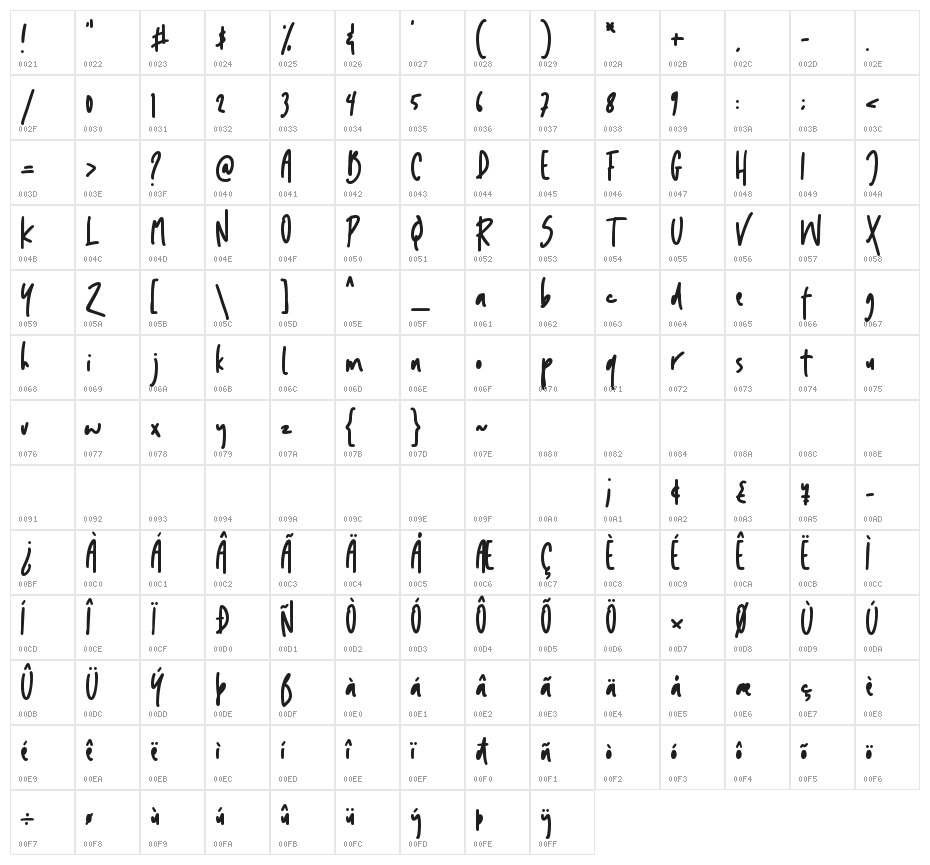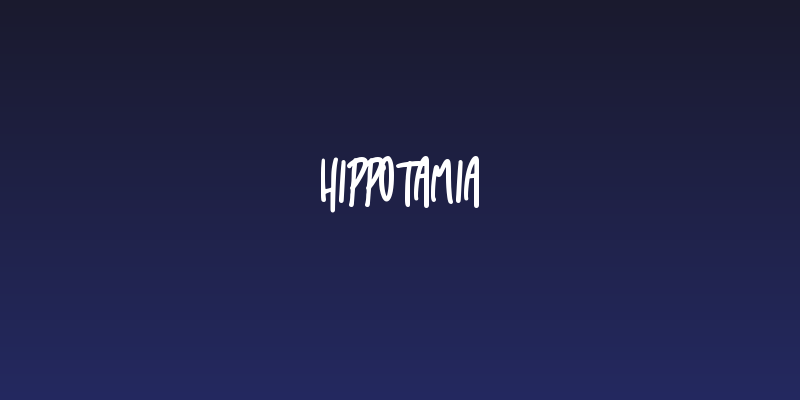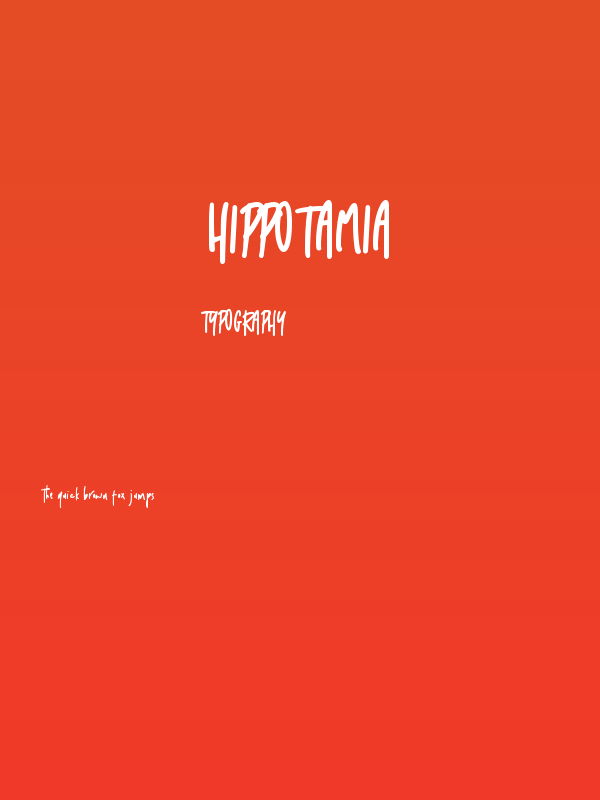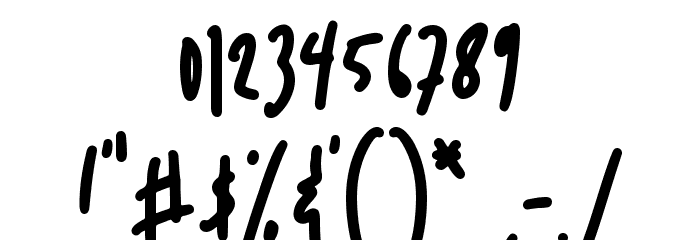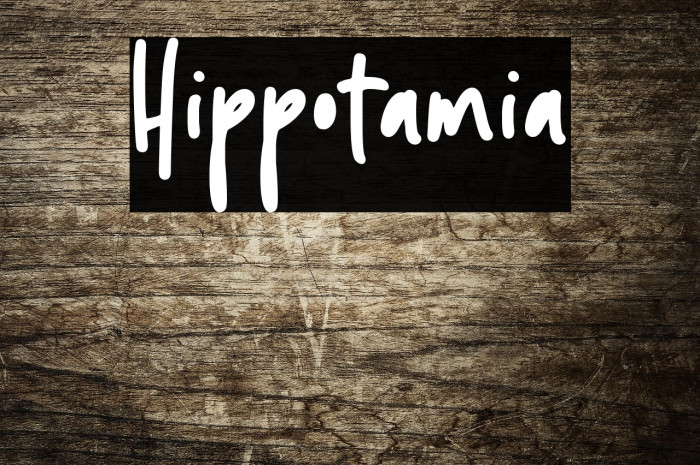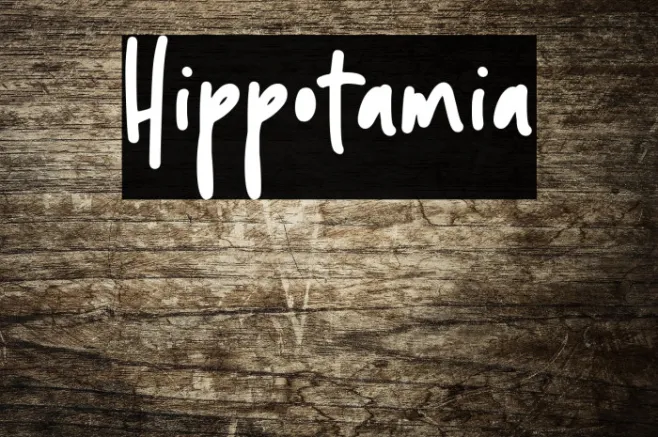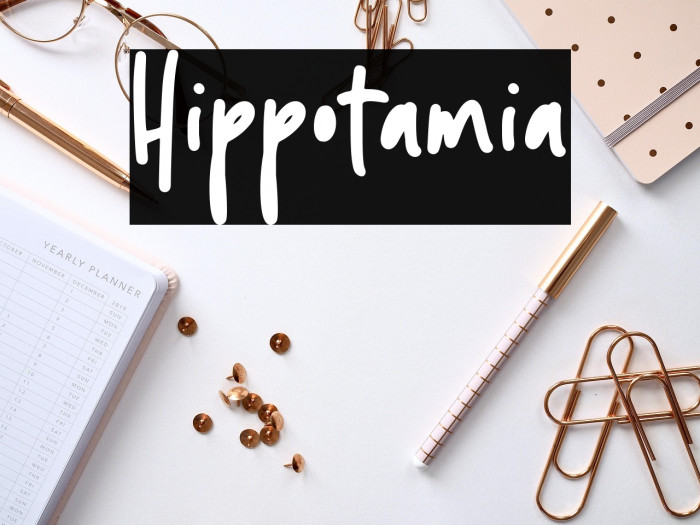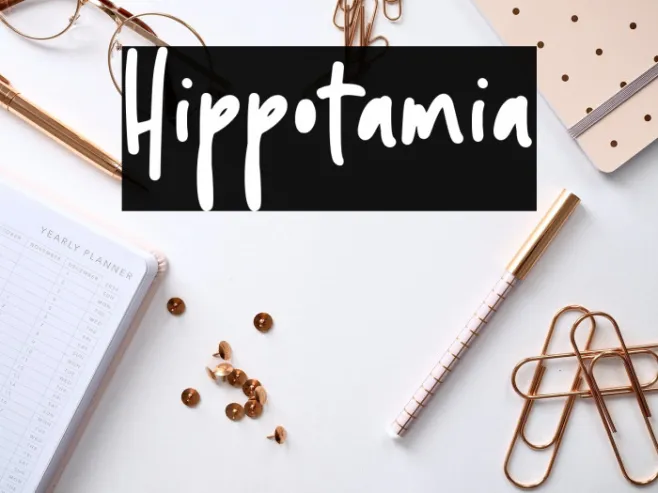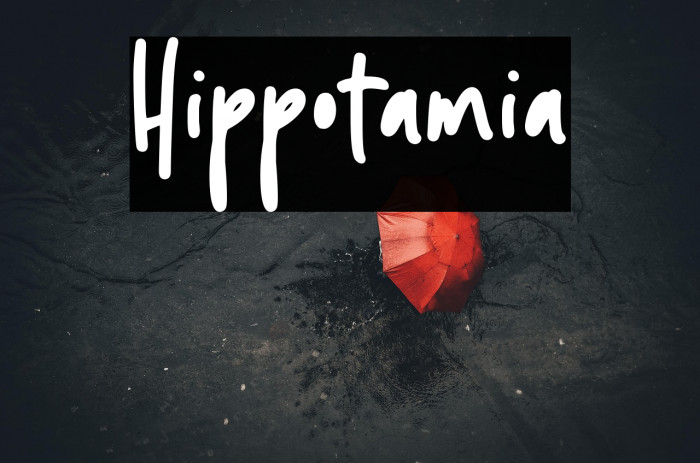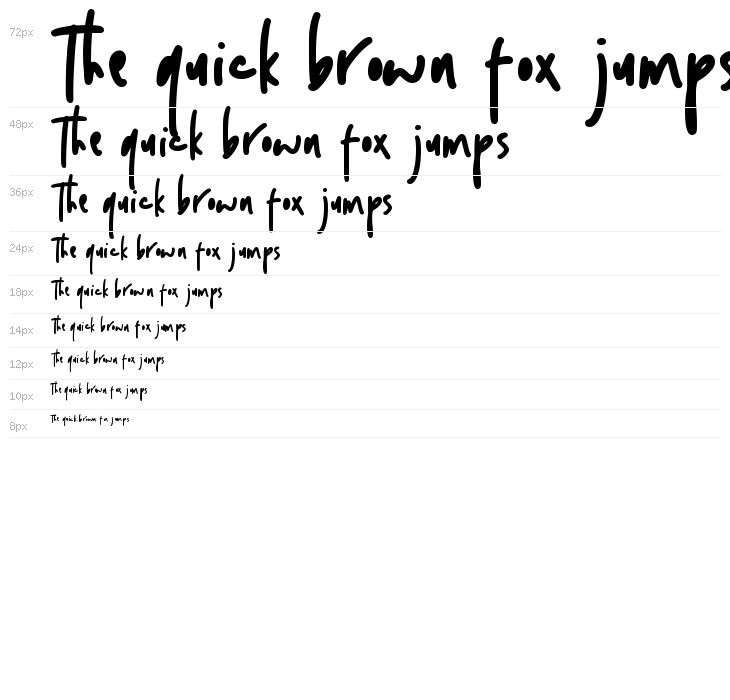
Hippotamia Font
Hippotamia Description
This font exhibits a playful and casual handwritten style, characterized by its bold and fluid strokes. The letters are slightly slanted, giving a dynamic and energetic feel. The uppercase and lowercase letters maintain a consistent style, with rounded edges and a smooth flow. The numbers and special characters follow the same aesthetic, ensuring uniformity across all characters. This font's informal and friendly appearance makes it suitable for creative projects that require a personal touch.
| Use Case | Logos, Headlines, Informal Invitations |
| Proposed Projects | Ideal for greeting cards, children's books, personal branding, and social media graphics. |